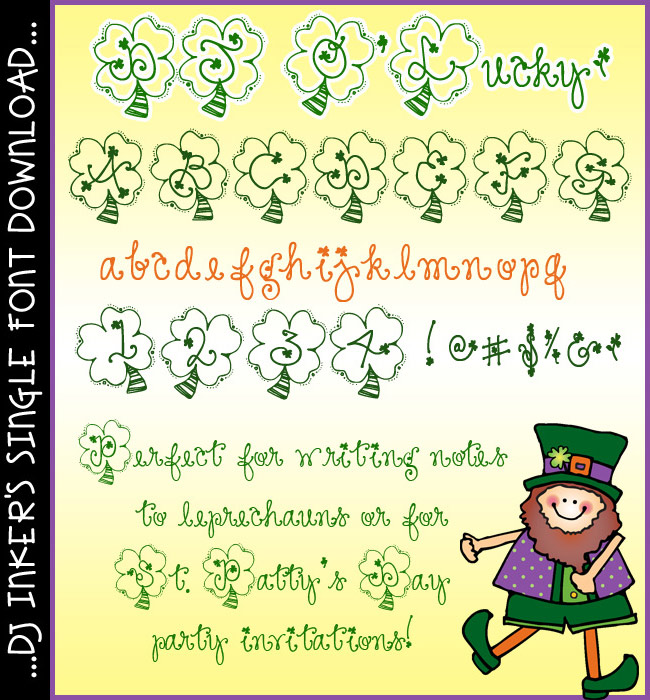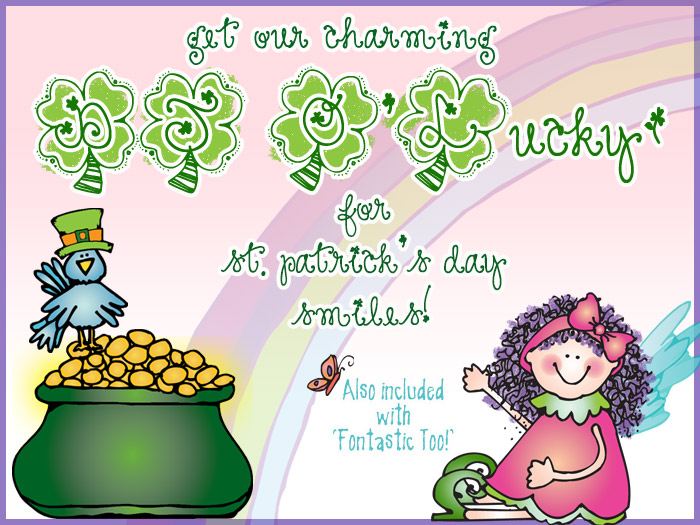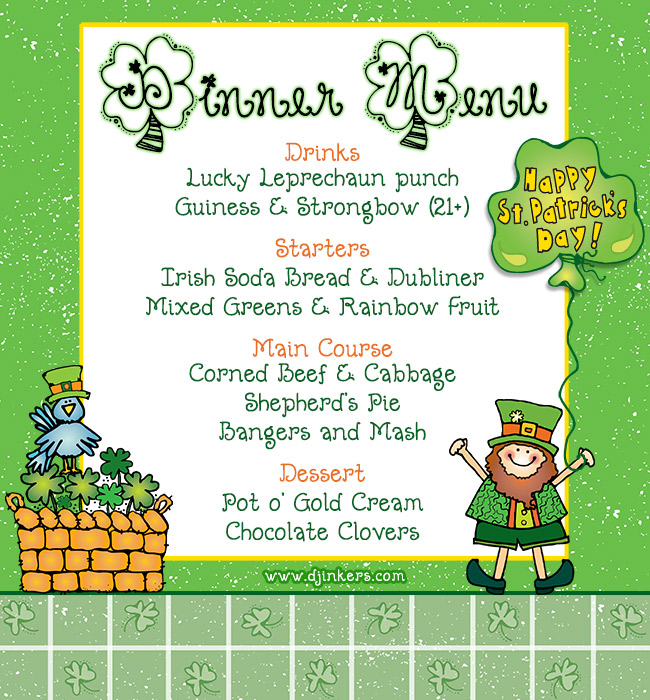
DJ O' Lucky is a fun shamrock font for St. Patrick's Day by DJ Inkers
You'll love this festive, shamrock font for St. Patty's Day!  DJ O' Lucky is great for writing little notes to leprechauns, celebrating the luck o' the Irish, invitations and decorations for St. Patrick's Day parties, March calendars, classroom projects & more.